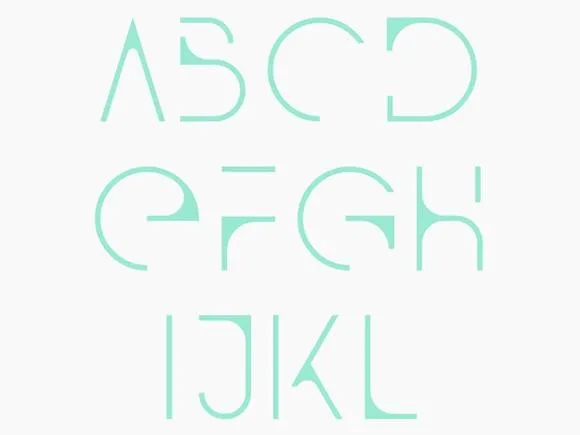
Download and enjoy this free qg font. Cool typeface to showcase your designs in a modern way. Go give some love to Freebies Bug for creating this top-notch font. Amaze your fellow designers and create stunning designs with this cool font.